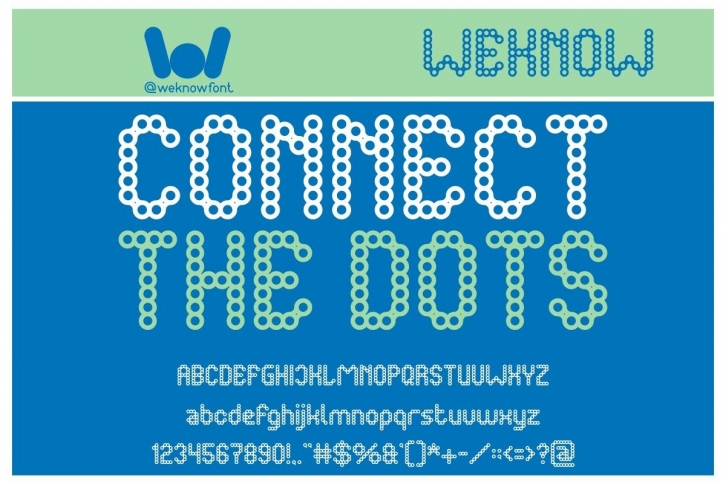
Connect The Dots is a techno-rounded decorative font, suitable for a logo, logotype, headline, corporate identity, brand identity, apparel industry, poster, music, movie, game, magazine, book, comic, cartoon, YouTube, Instagram, website, or any of your creative design projects.